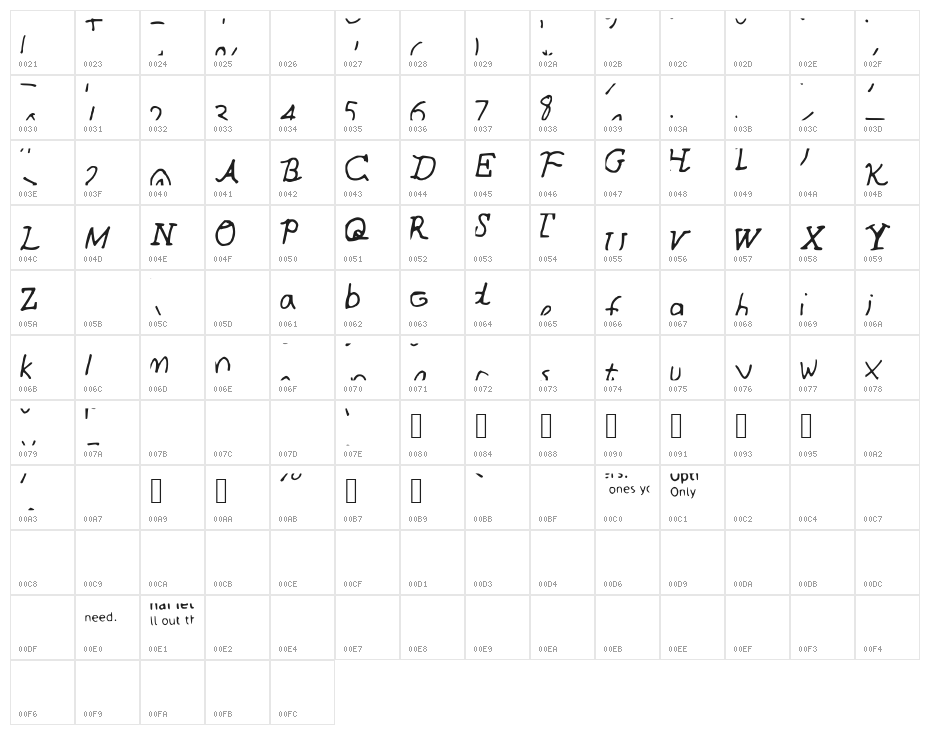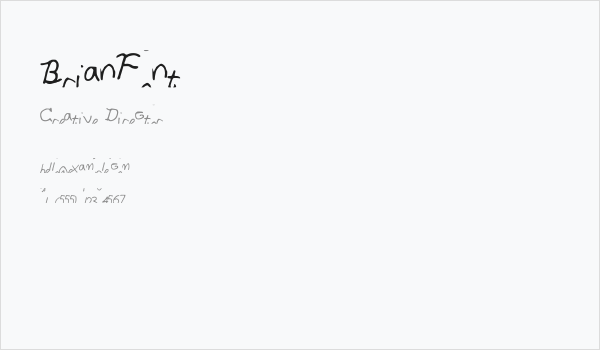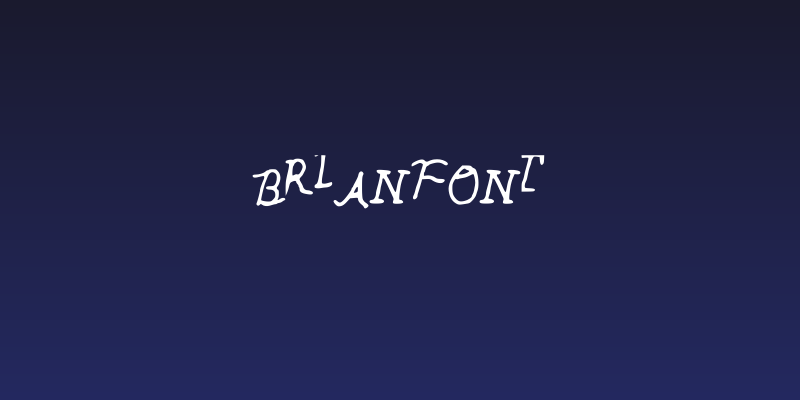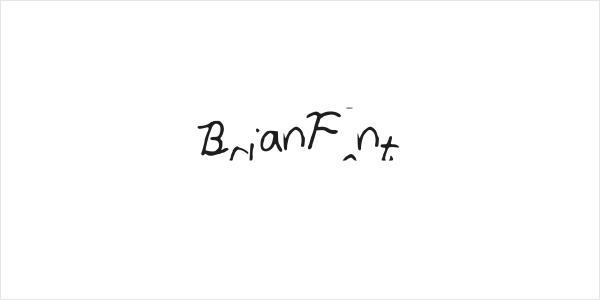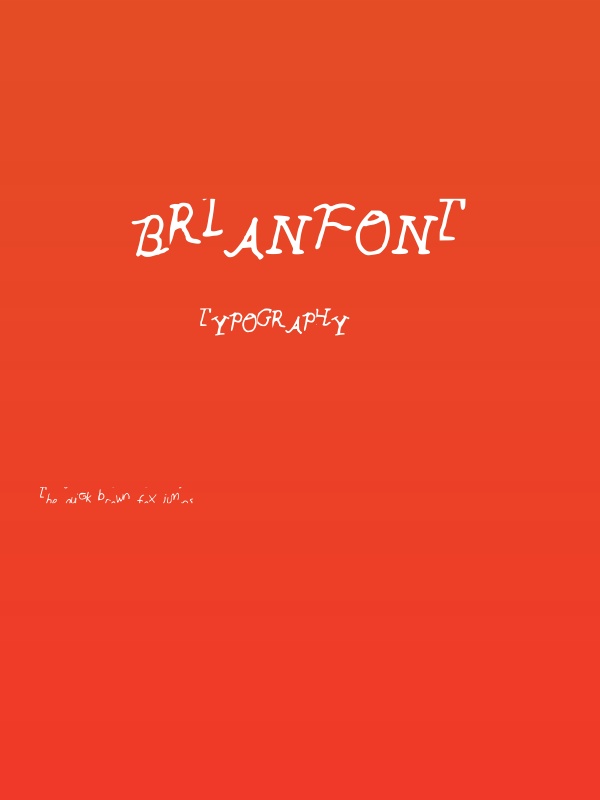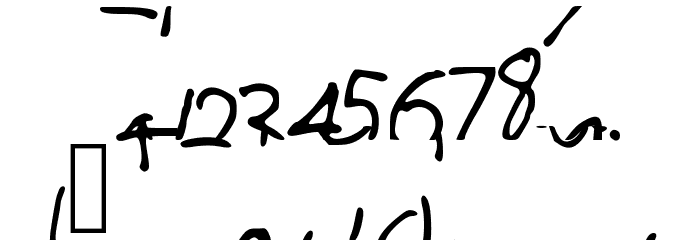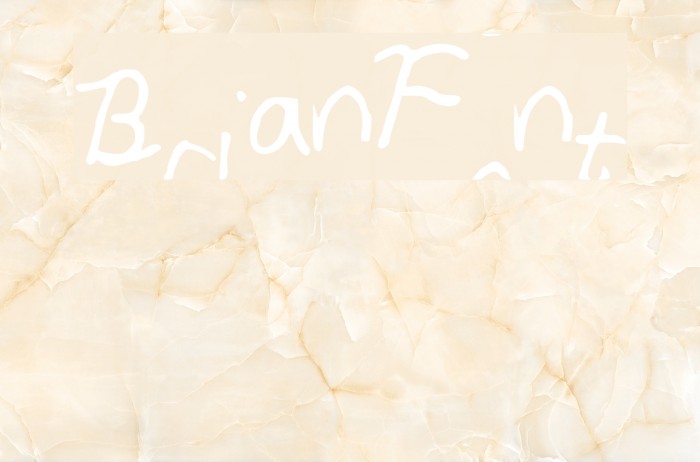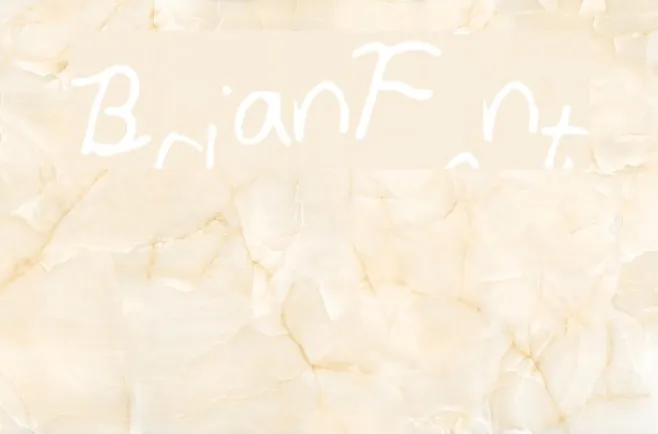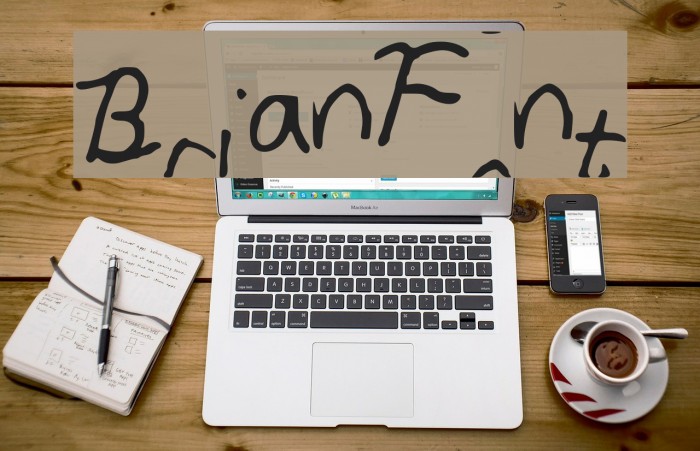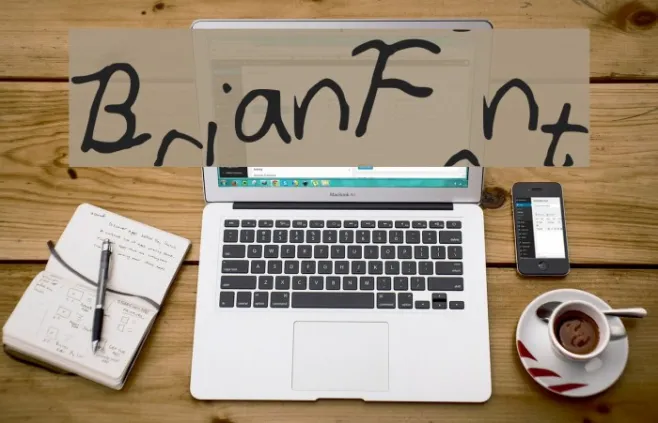
BrianFont Font
BrianFont Description
This font exhibits a playful and informal handwritten style, characterized by its irregular and dynamic strokes. The letters have a casual, almost whimsical appearance, with varying heights and slants that give it a lively and spontaneous feel. The uppercase letters are bold and prominent, while the lowercase letters maintain a consistent flow, adding to the font's overall charm. The numbers and special characters follow the same playful aesthetic, making this font suitable for creative and informal projects. Its unique style can add a personal touch to any design.
| Proposed Projects | Ideal for greeting cards, invitations, children's books, and creative branding projects. |